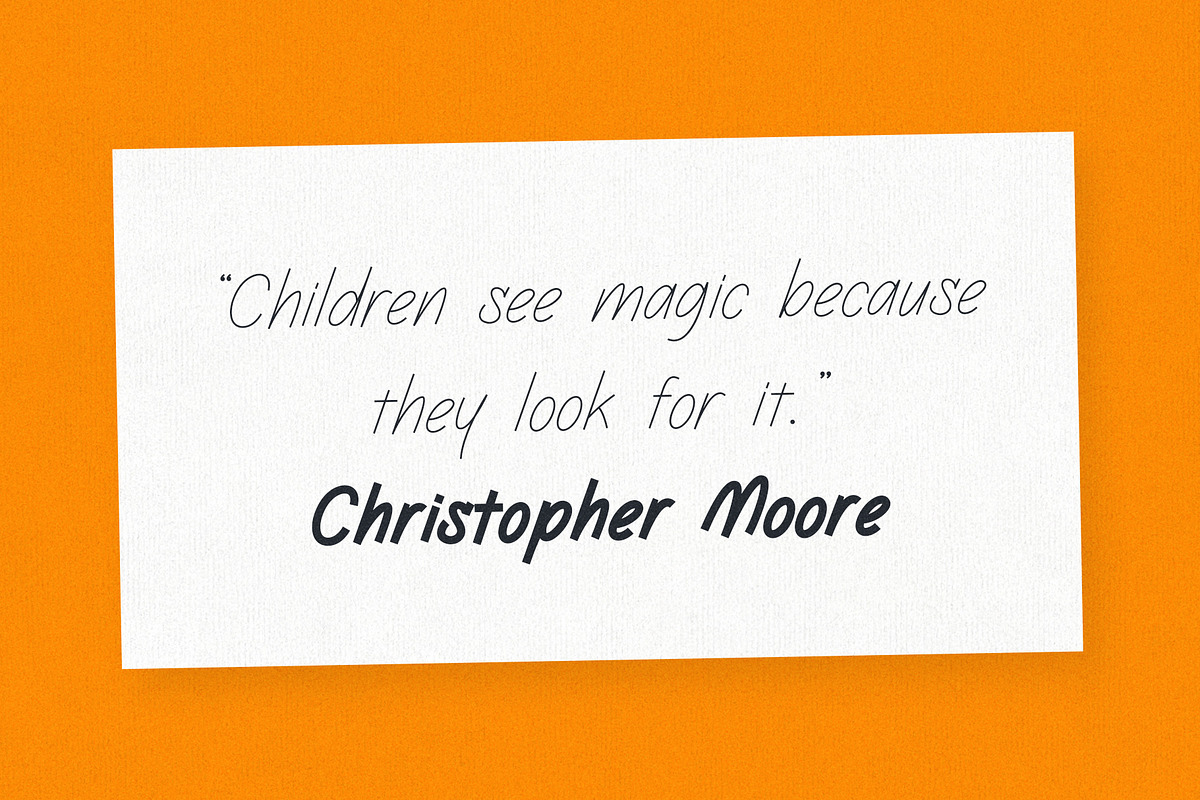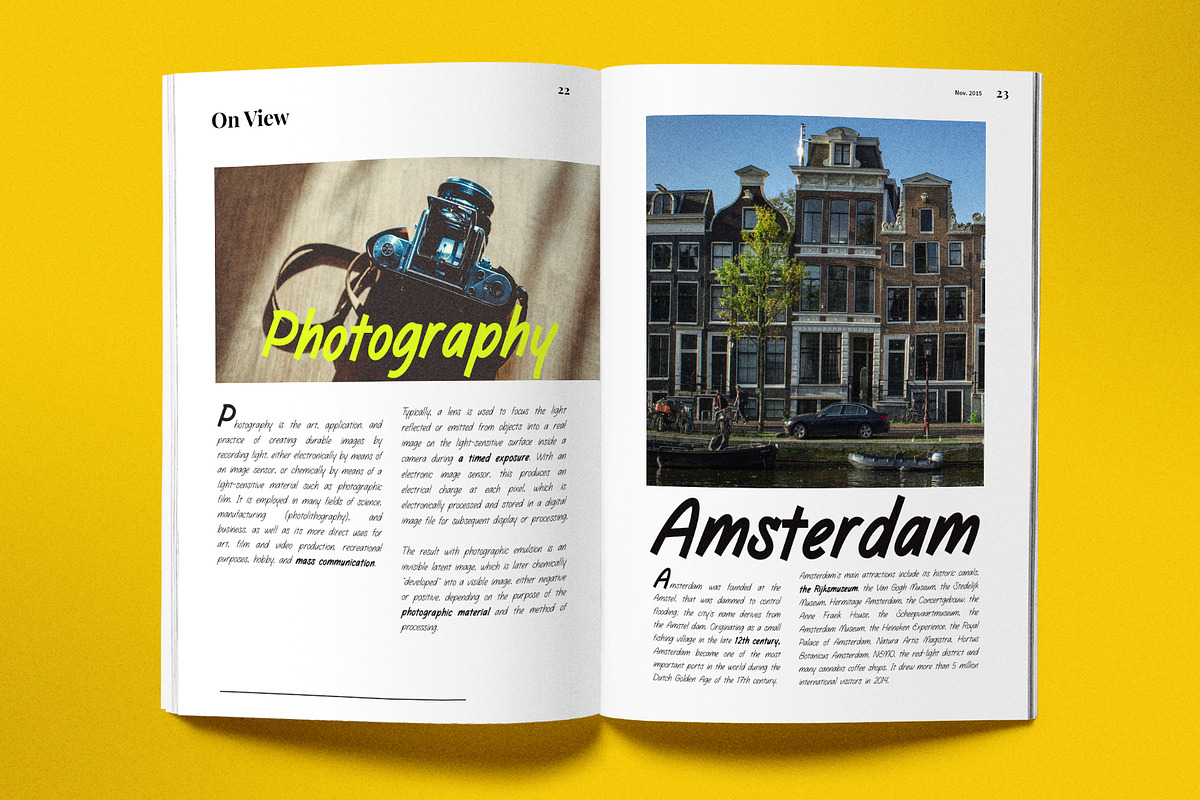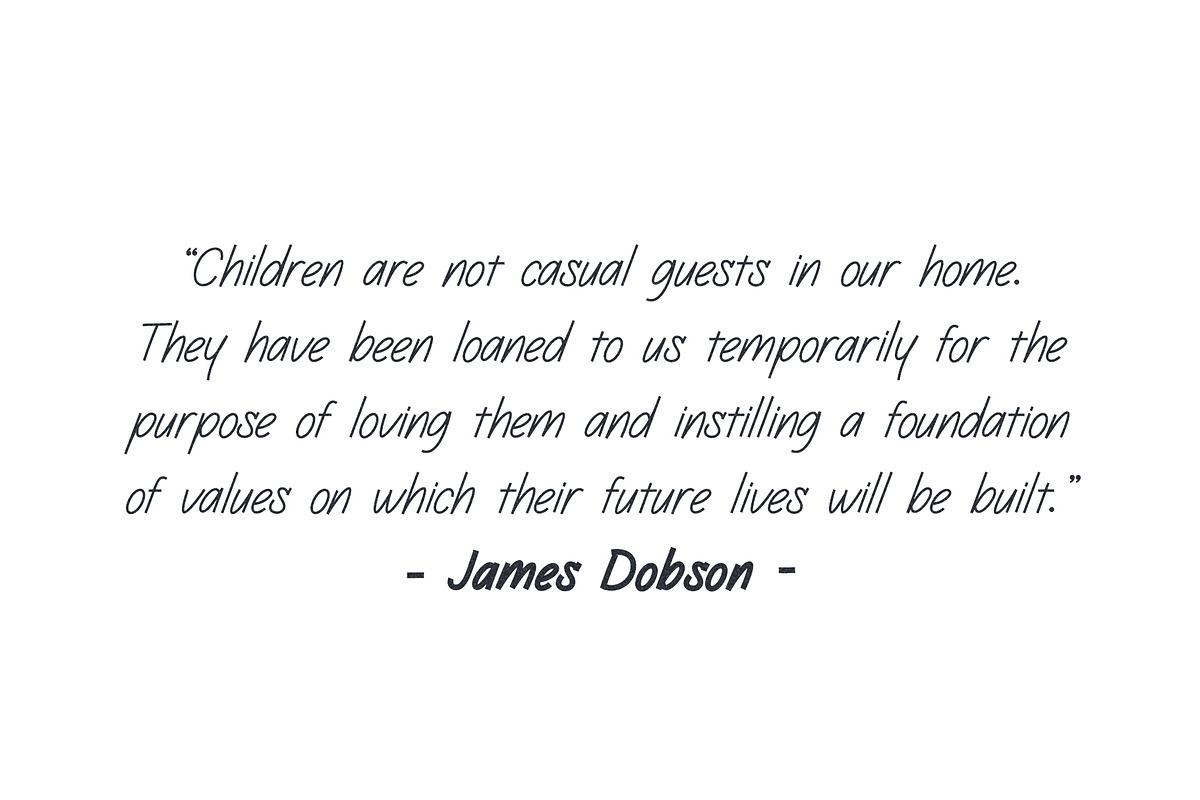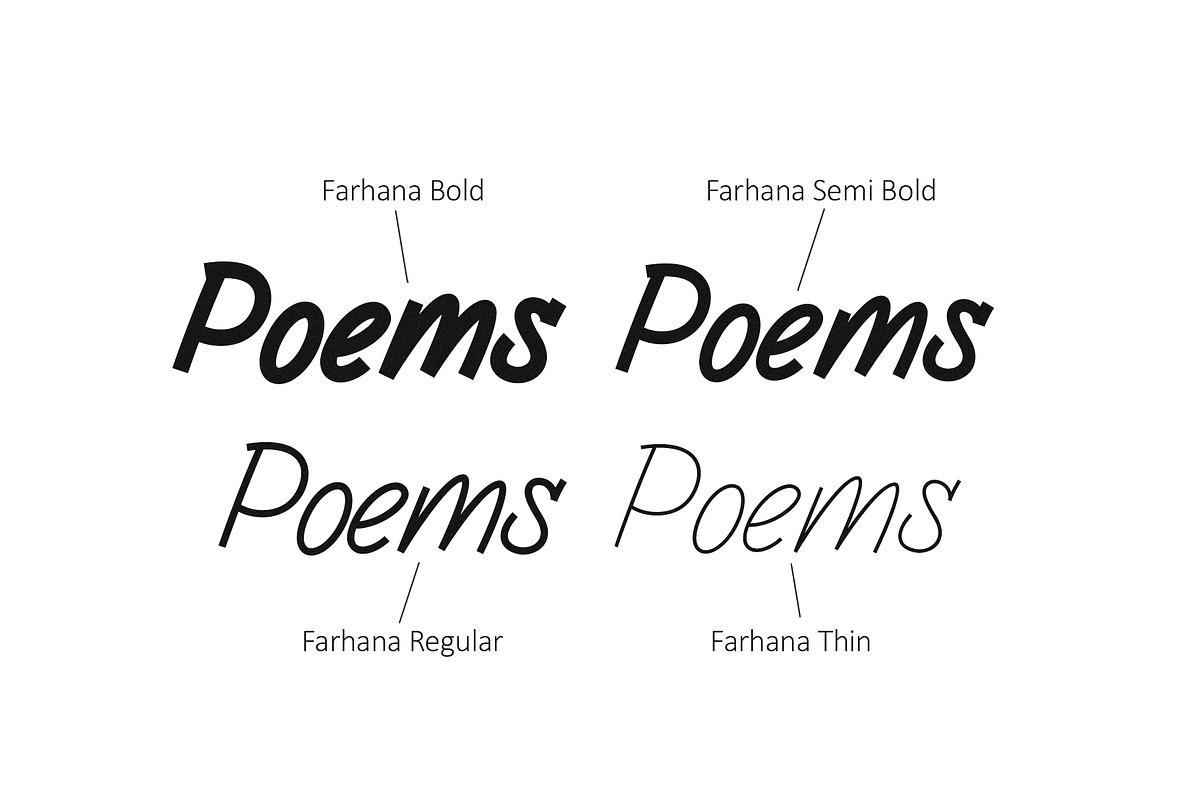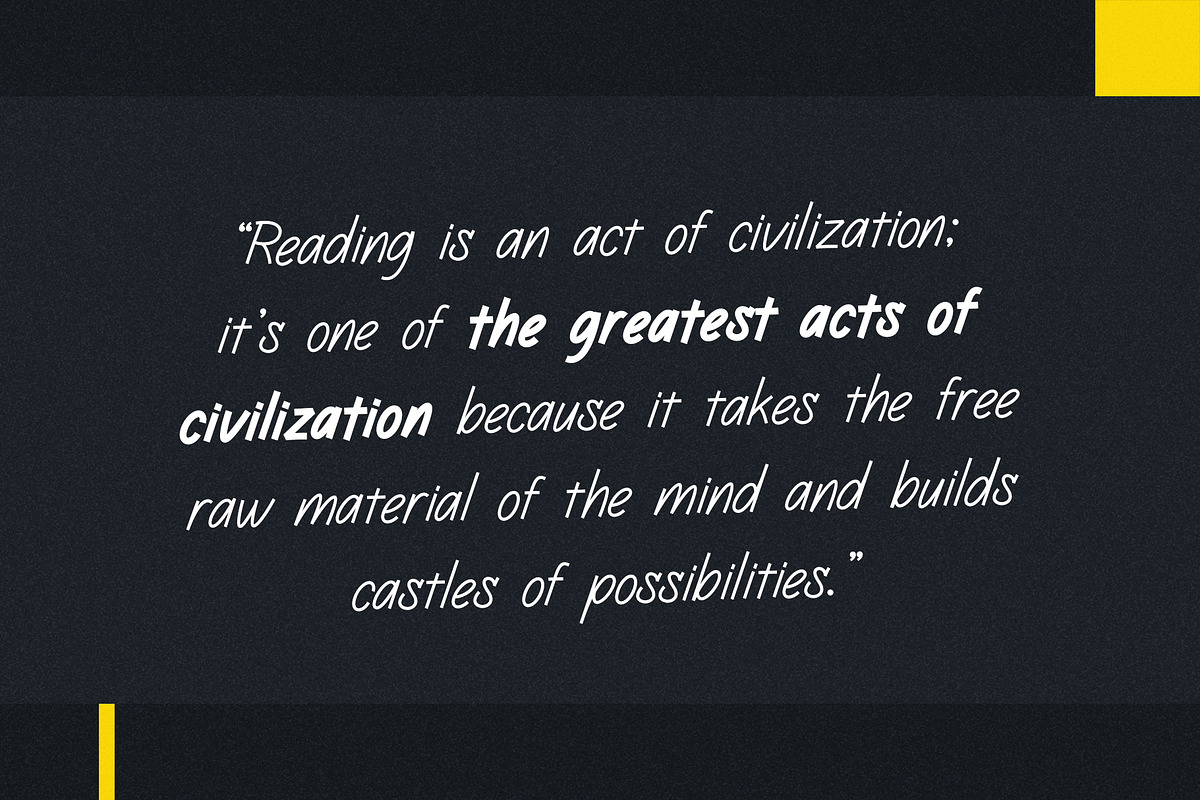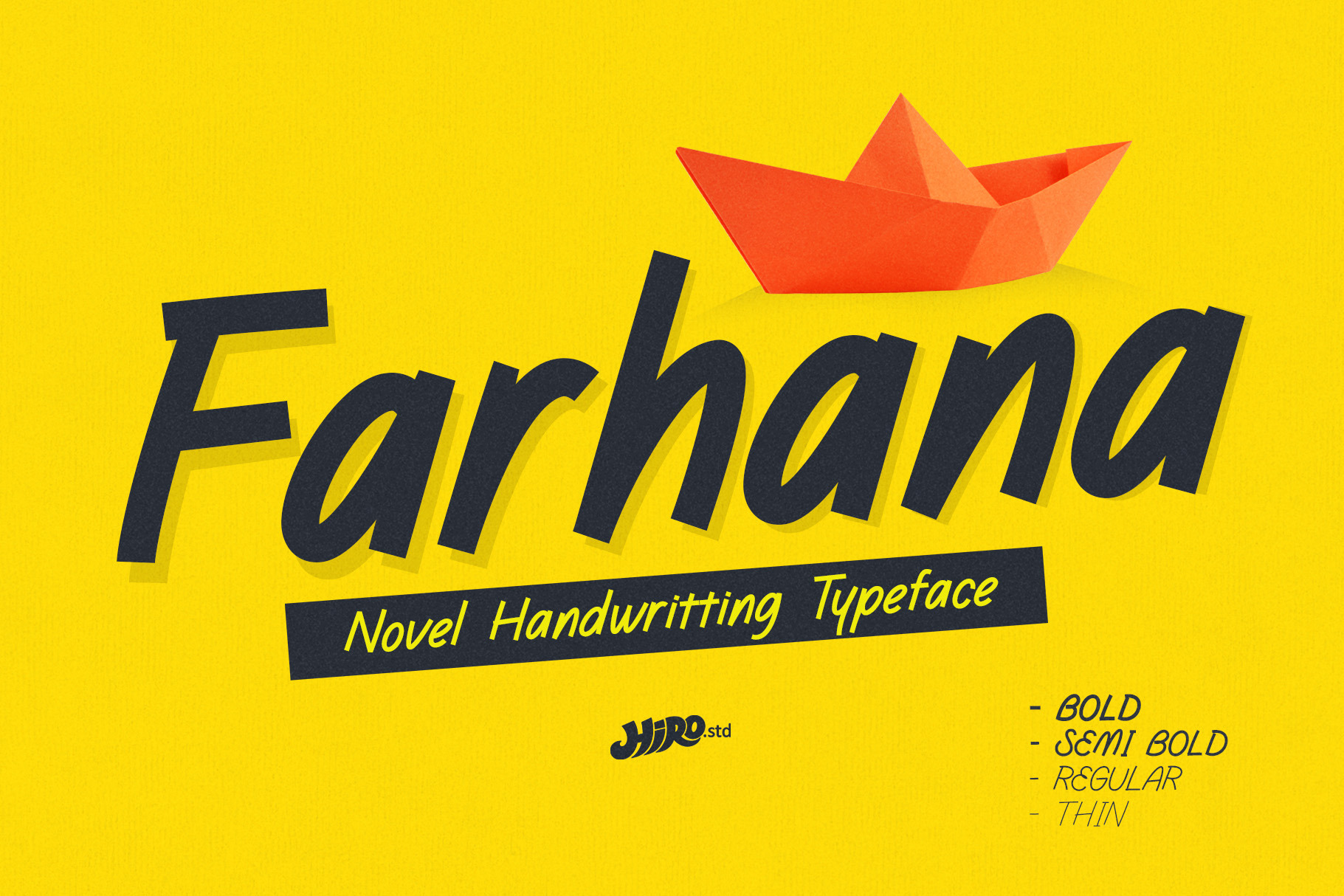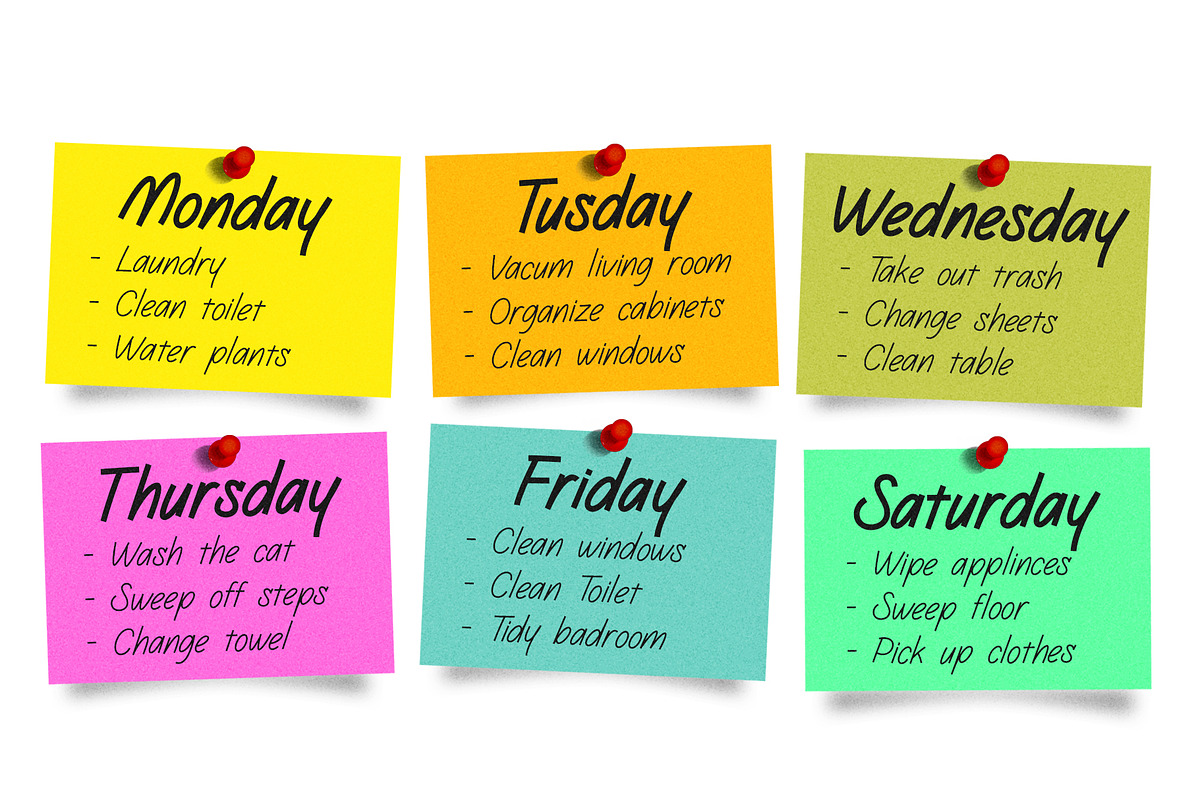
Farhana - Novel Handwritten Typeface
Farhana is Handwritten Typeface
This font describes about funny, dynamic, humanist, easy going, and easy to use.
USE Farhana works great in any quotes, novel, book, magazine, poster, print, social media post, e-book, etc.